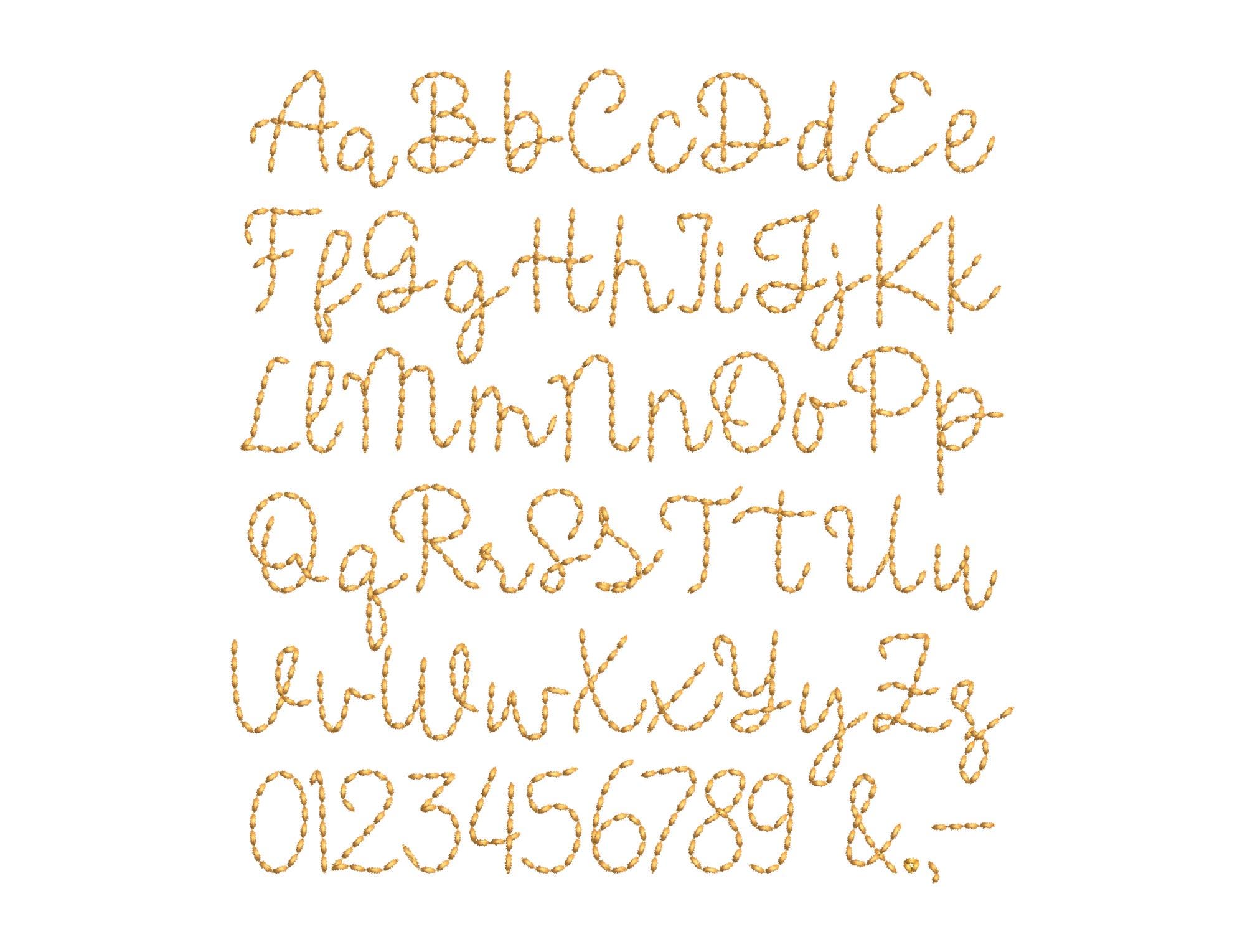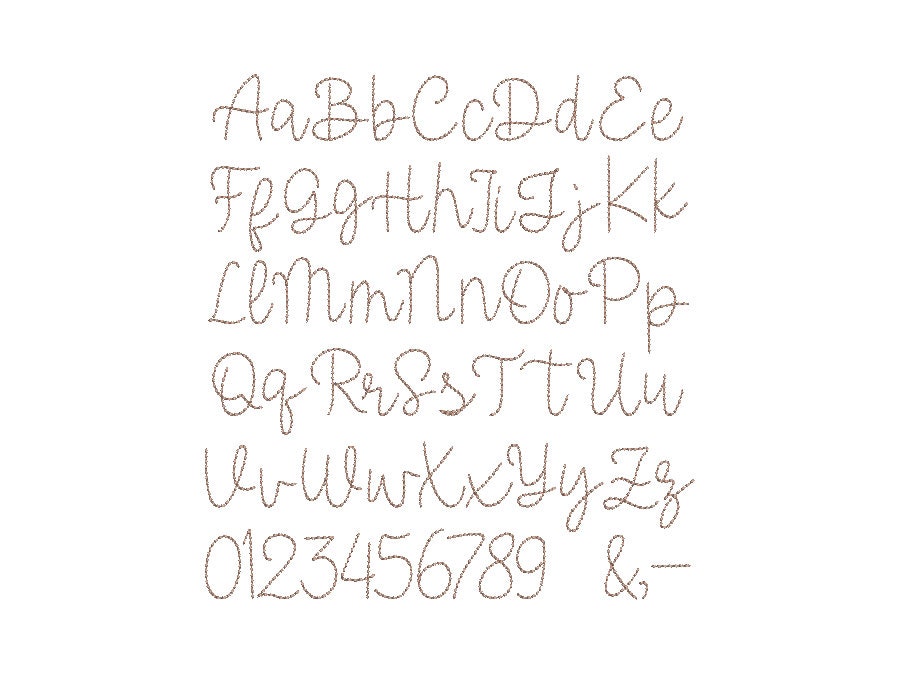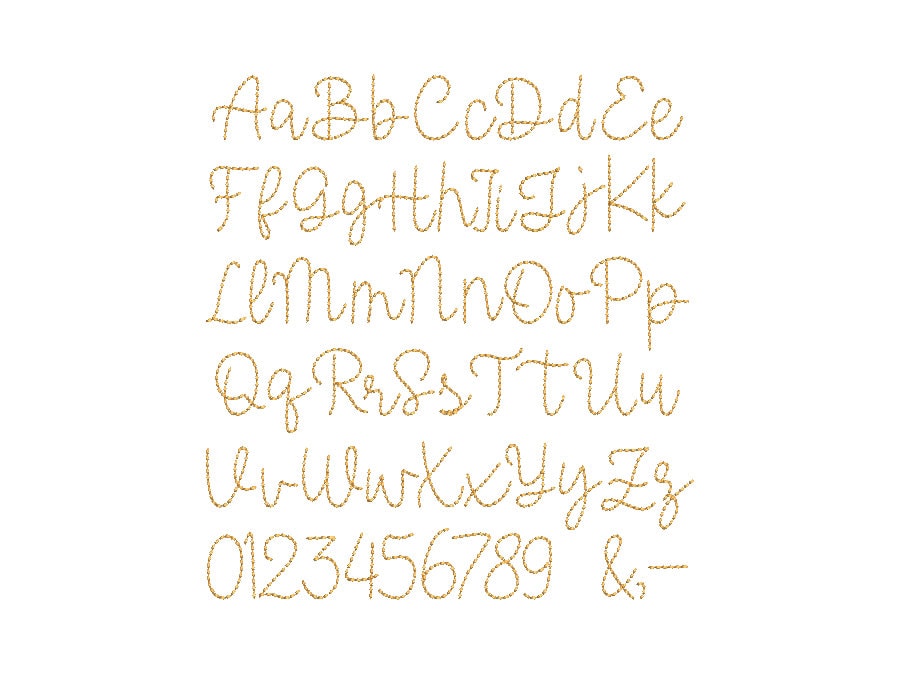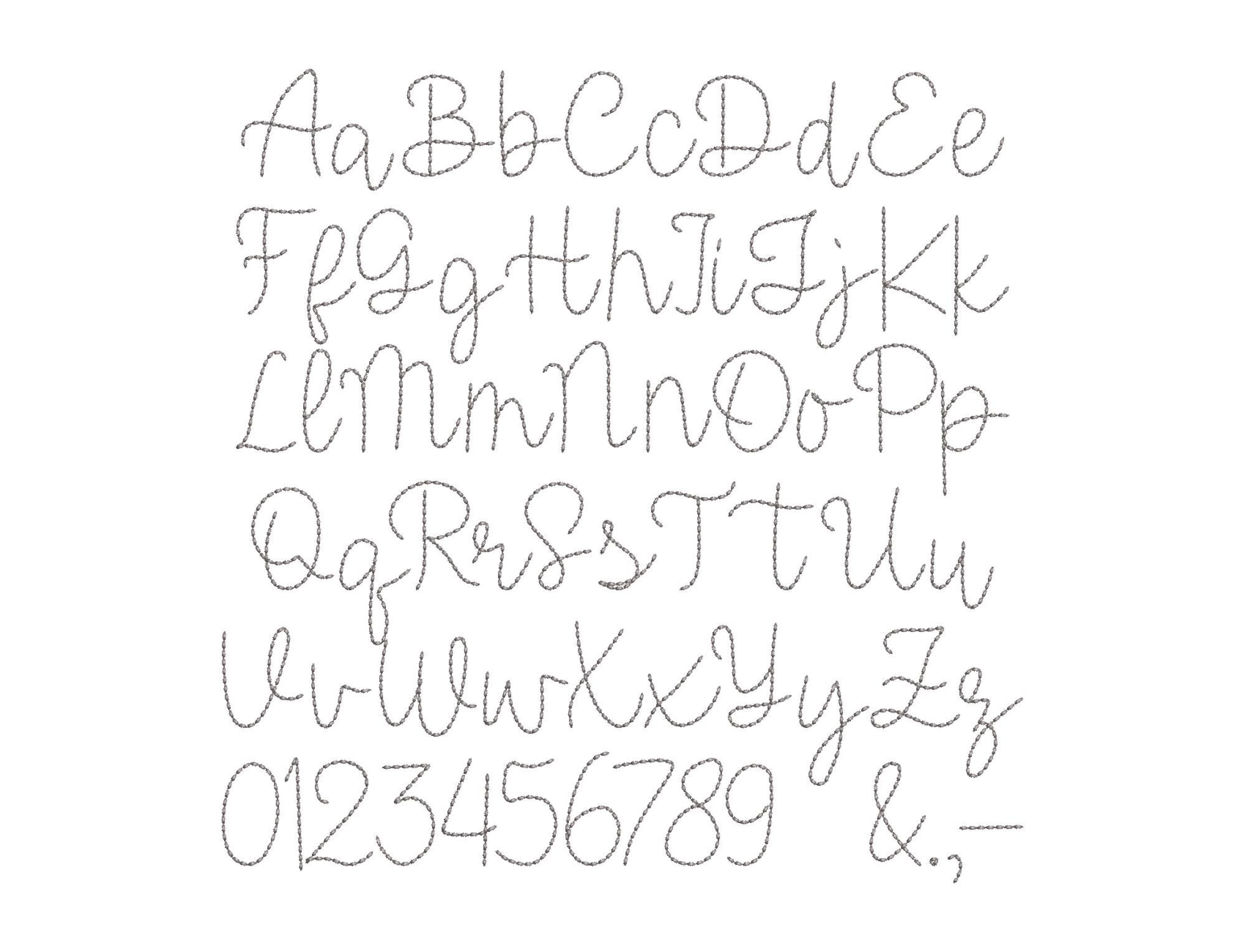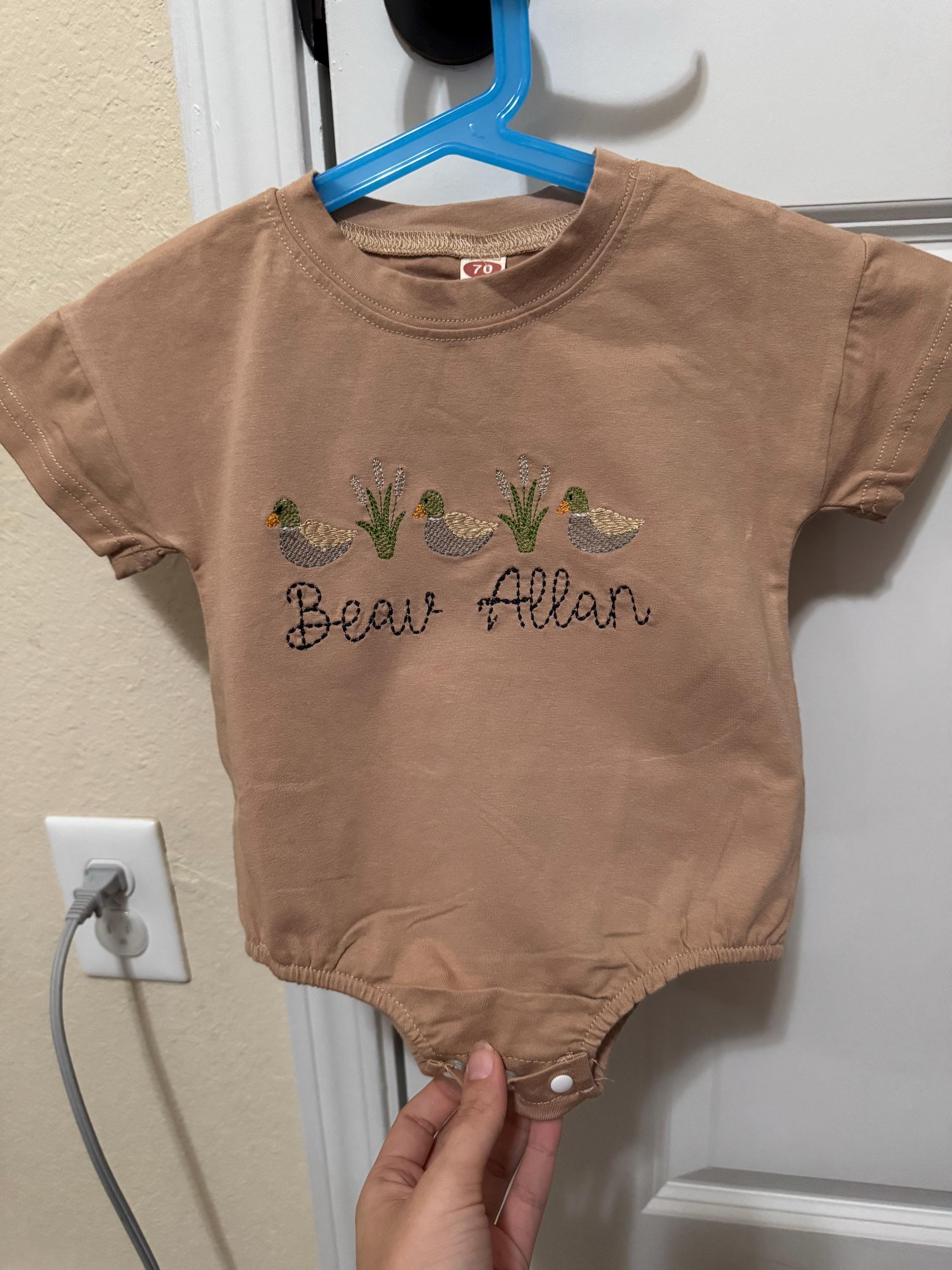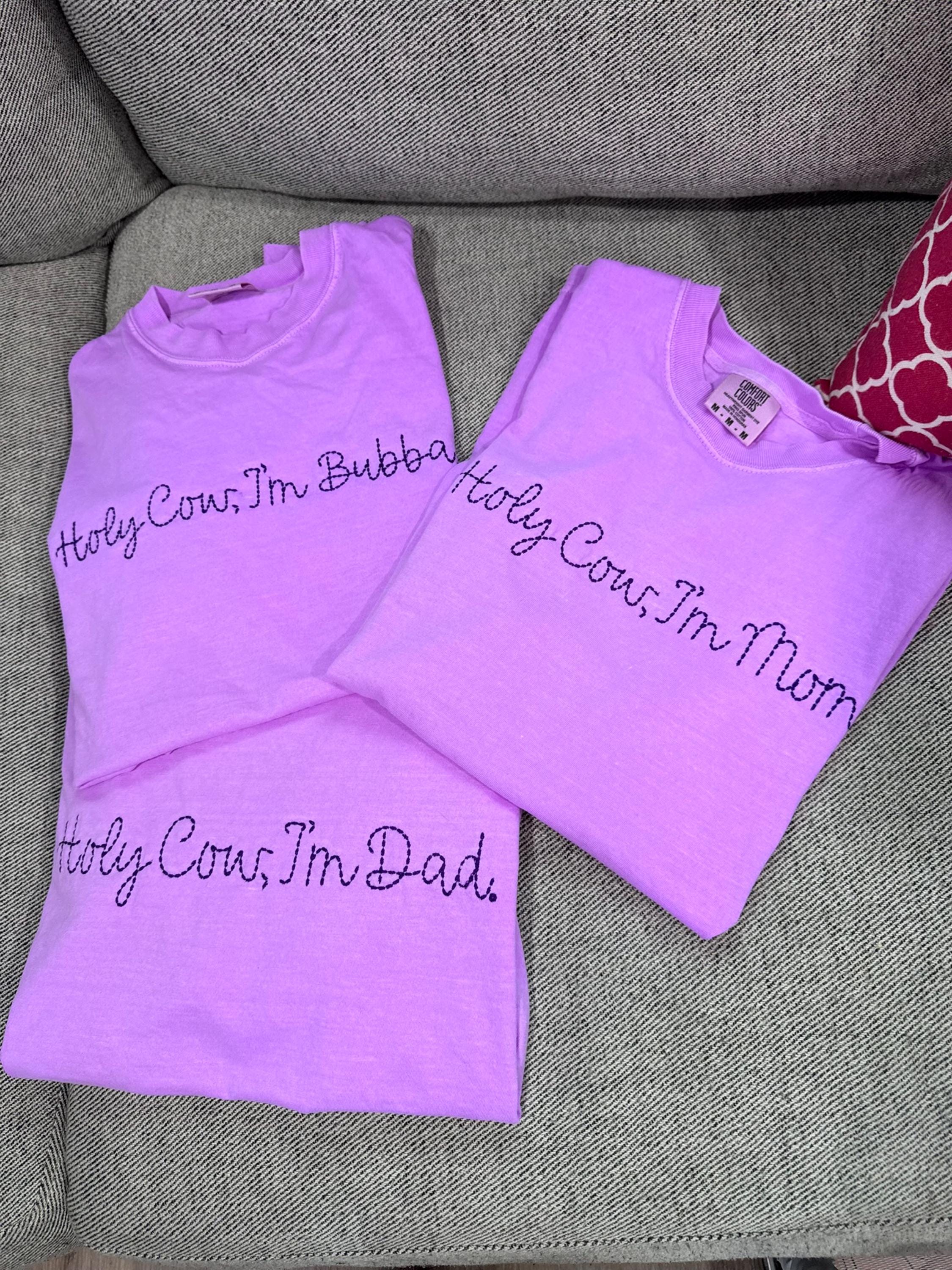
Hand stitch effect FONT machine embroidery designs in assorted mini sizes script alphabet letters, playful kids name seed stitch, BX included
Entire alphabet uppercase and lowercase letters Aa-Zz, numbers 0-9, and punctuation.